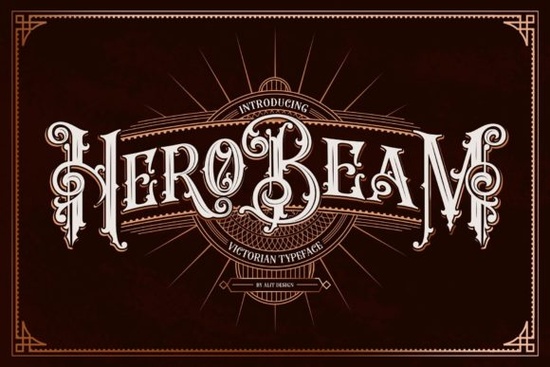
If you're looking for a bold, dramatic font with vintage charm, Hero Beam Font delivers exactly that. Designed in the classic blackletter style inspired by Victorian-era lettering, it brings a sense of grandeur and authenticity to any project. Whether you're creating custom invitations, branding for a boutique shop, or artwork for print-on-demand products, this font stands out without overwhelming your design.
What makes Hero Beam Font special?
Unlike many fonts that limit access to extra characters, Hero Beam is PUA (Private Unicode Area) encoded. This means every swash, alternate glyph, and decorative element is easy to access no complicated keyboard shortcuts or third-party tools needed. You can use these flourishes directly in your favorite design software like Adobe Illustrator, Photoshop, or Canva.
The font’s strong, angular strokes and intricate details give it a powerful presence. It’s ideal for logos, headlines, album covers, tattoo designs, or even book titles. Its unique look helps your work feel hand-crafted and intentional, not generic or mass-produced.
One thing to keep in mind: while Hero Beam is bold, it works best when paired with simpler elements. Let the font be the star. Avoid cluttering your layout with too many competing styles.
Blackletter fonts like Hero Beam can become hard to read at small sizes. Always test your final design at multiple scales especially if it’s going on a product like a T-shirt or sticker. Make sure the details remain clear and legible.
And remember: the goal isn’t just to impress it’s to communicate clearly while standing out. When done right, a font like this adds character without confusion.